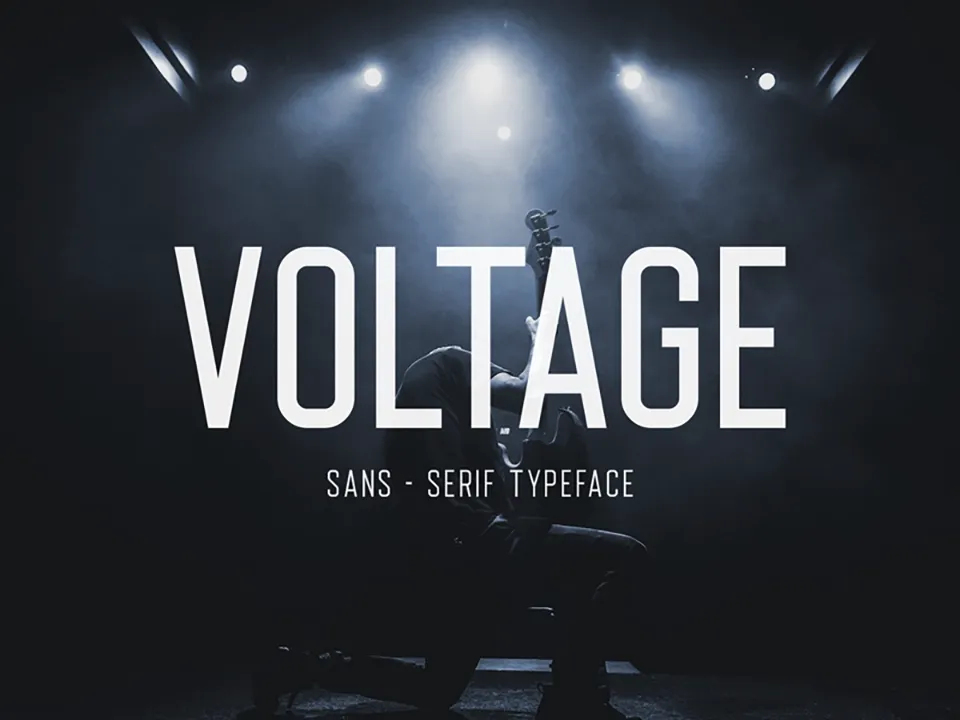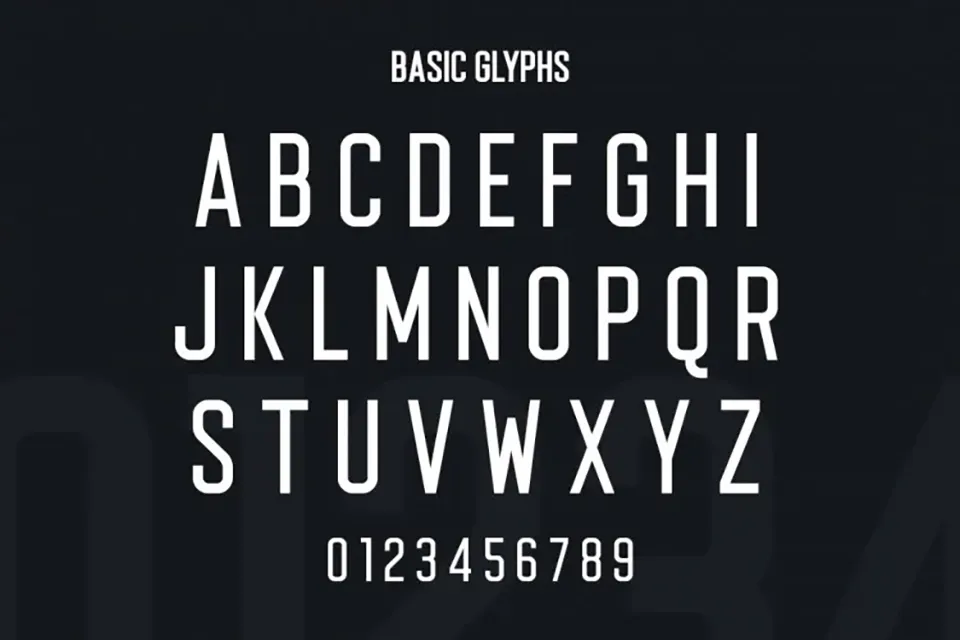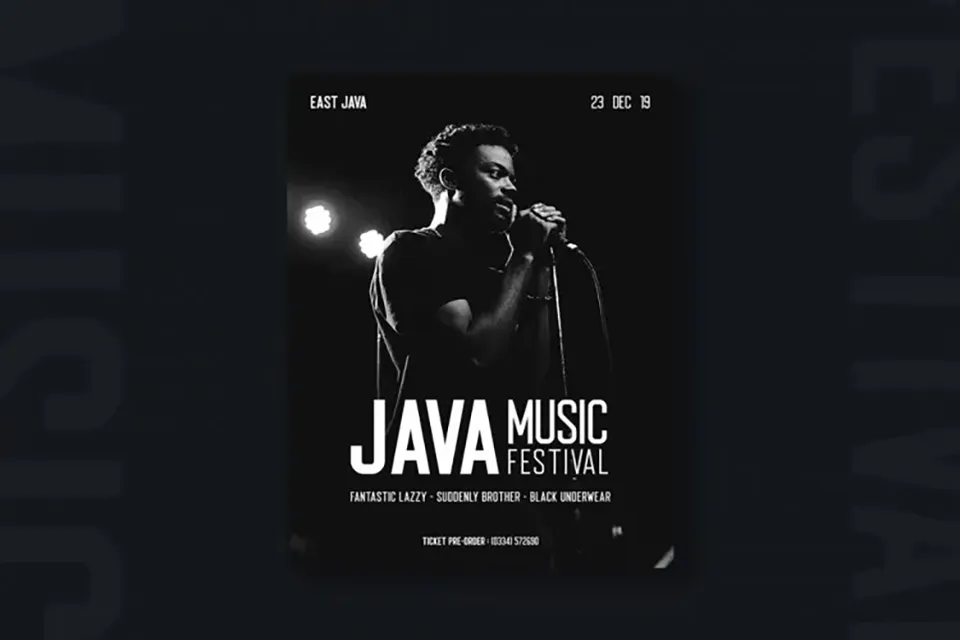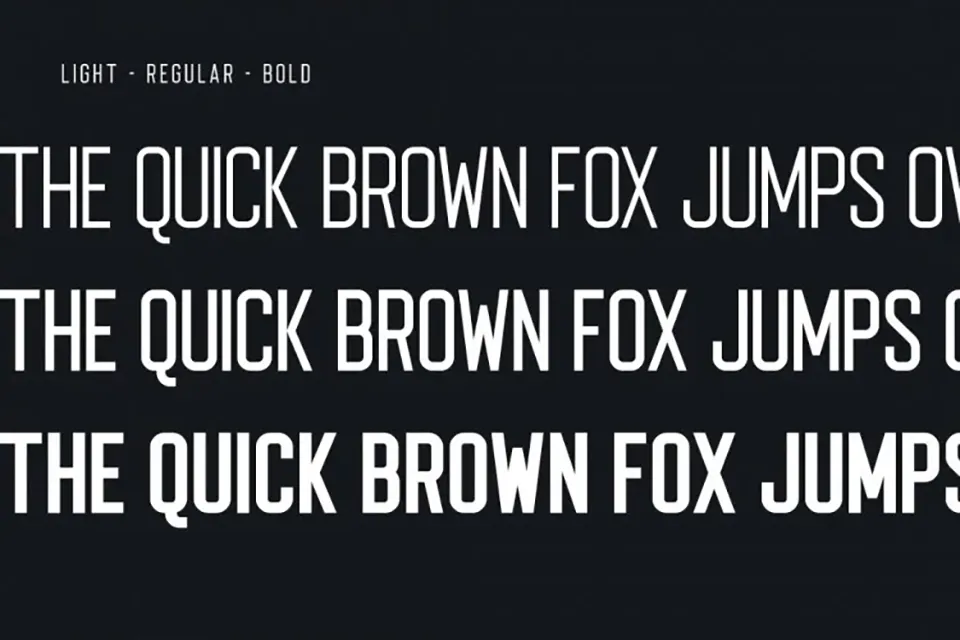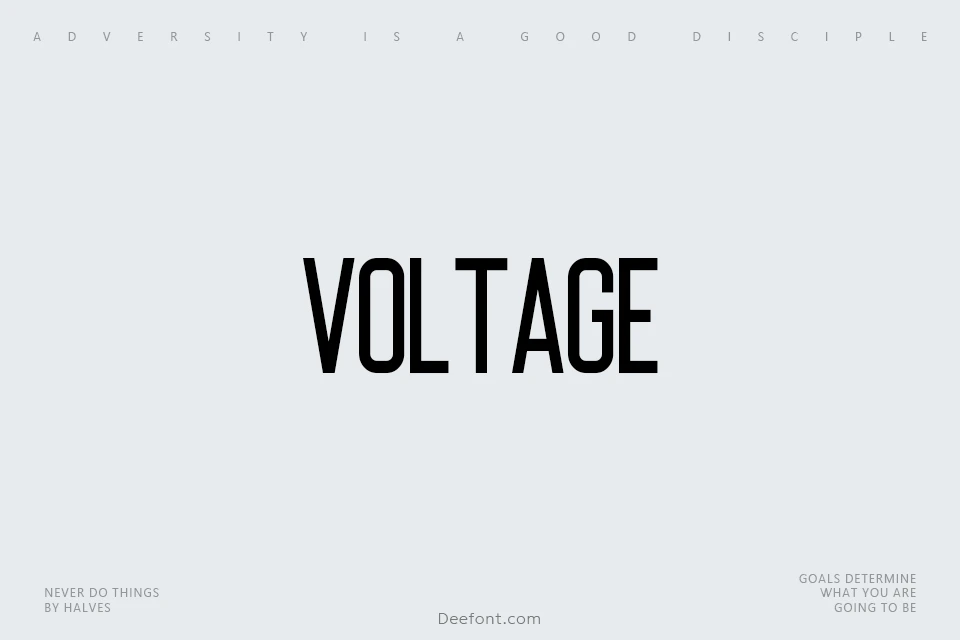
Voltage Font
Voltage Font is a modern sans-serif typeface designed with versatility at its core. This contemporary font combines clean lines with a bold, distinctive character, making it suitable for both eye-catching headlines and legible body copy. Its sleek design evokes a sense of strength and clarity while maintaining elegant proportions. Voltage’s condensed structure gives it a commanding presence, particularly effective for impactful logos, branding materials, and editorial designs. The font exudes a refined yet slightly edgy quality, bringing a sophisticated and contemporary feel to any creative project. With its balanced visual weight and strong typographic presence, Voltage offers designers a powerful tool for making clear, confident statements.